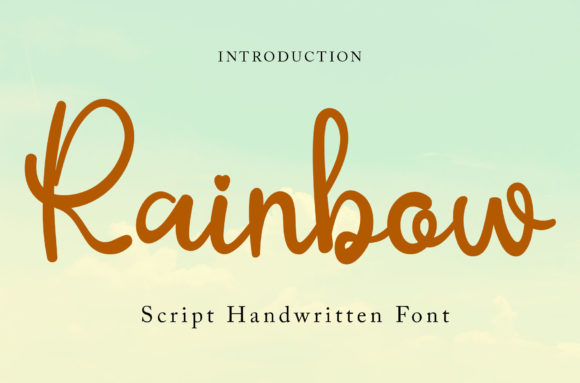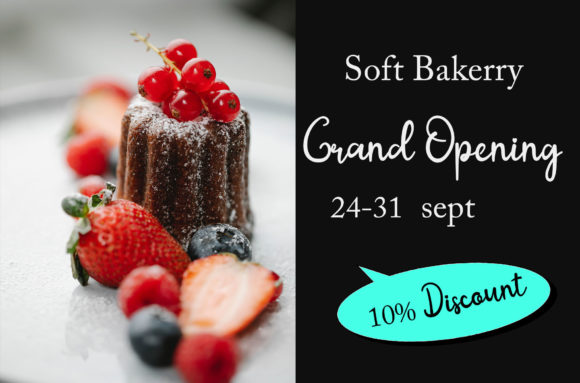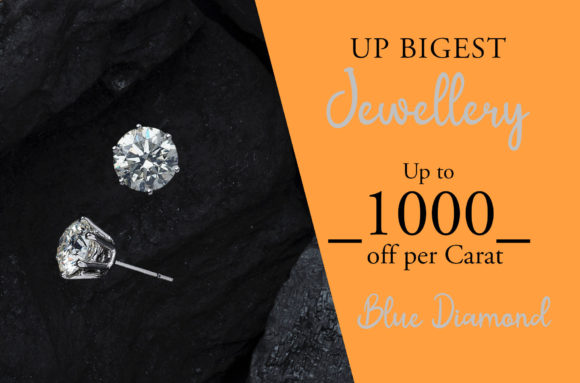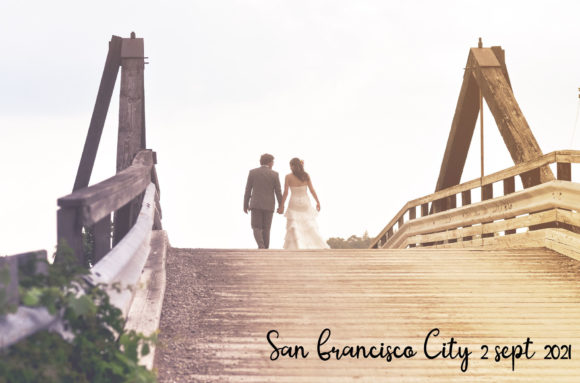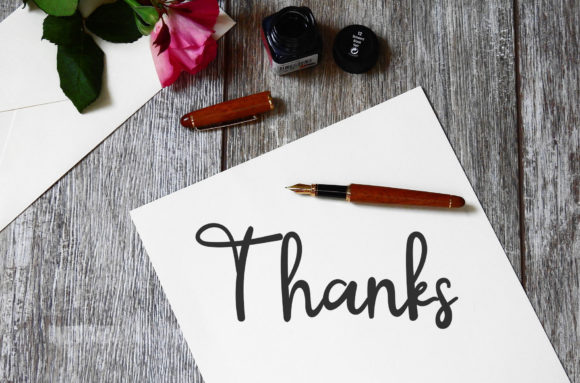
Rainbow Font
Ranbow is a sweet and delicate handwritten font. Tiny and playful, this font would be ideal for writing wedding invitations, cards or any other design that might require a romantic and personal touch!